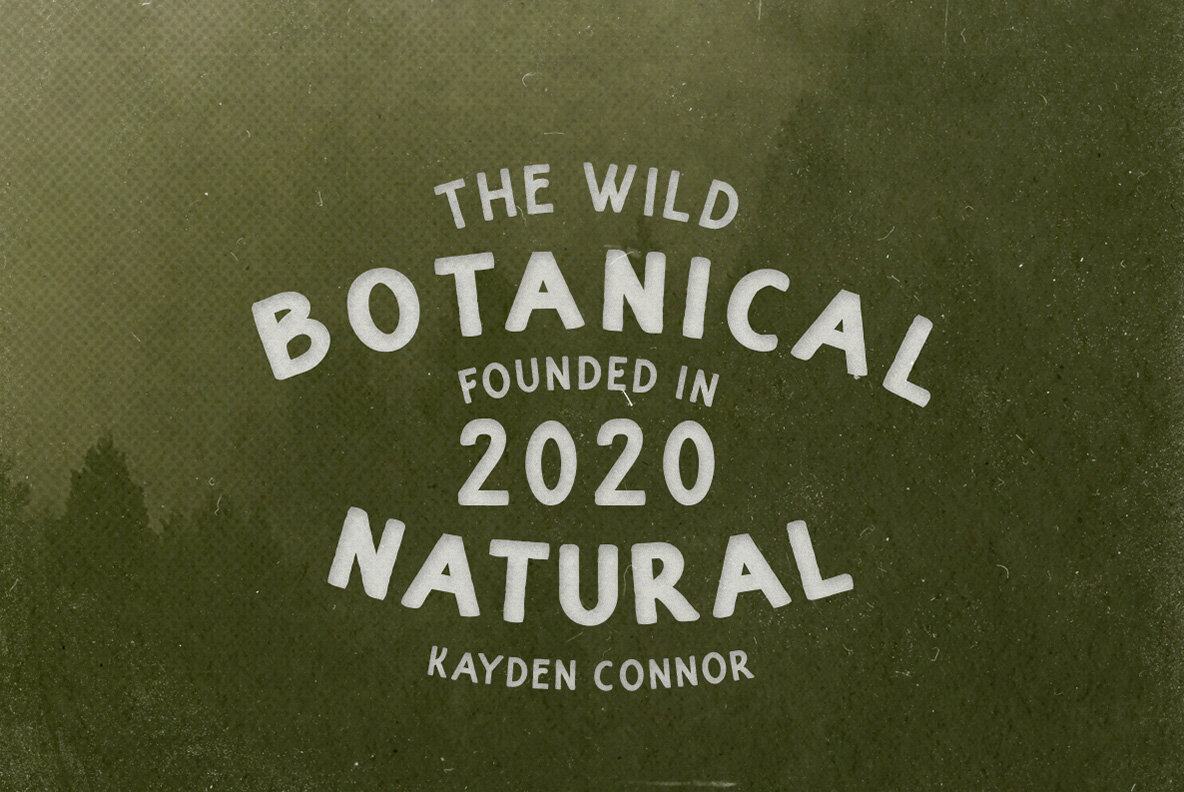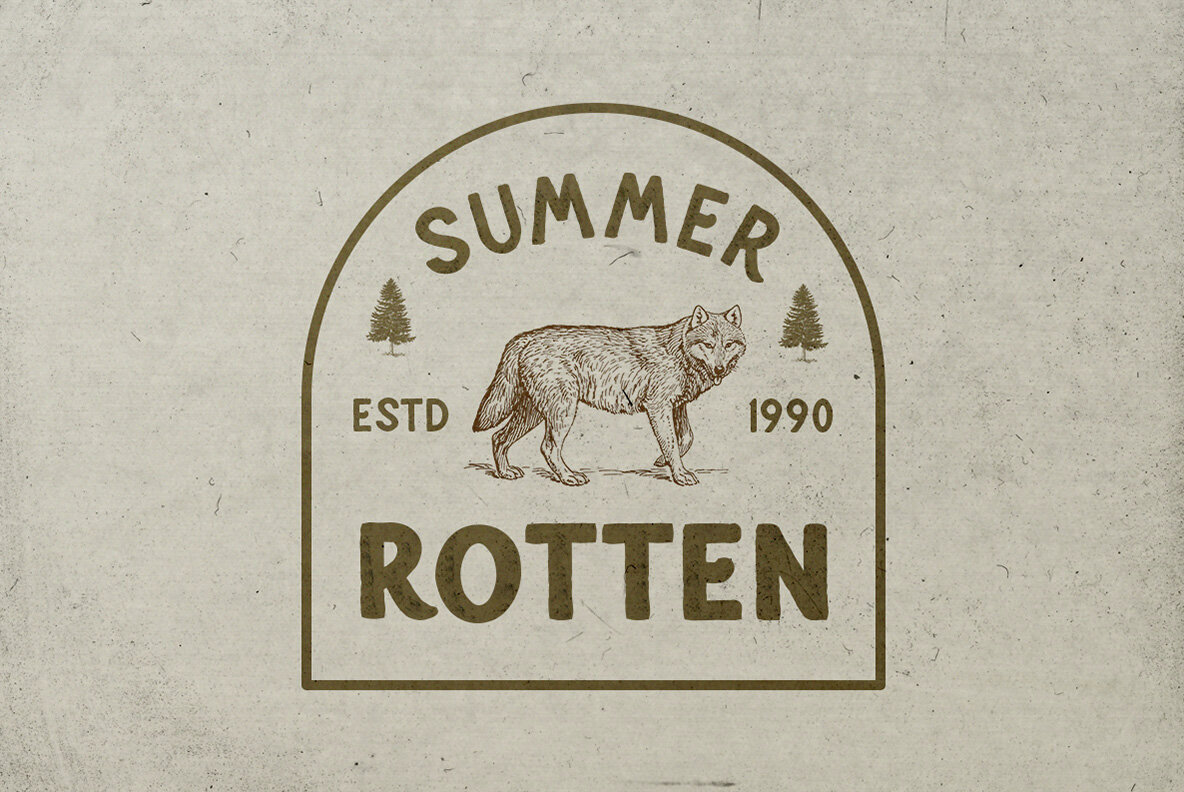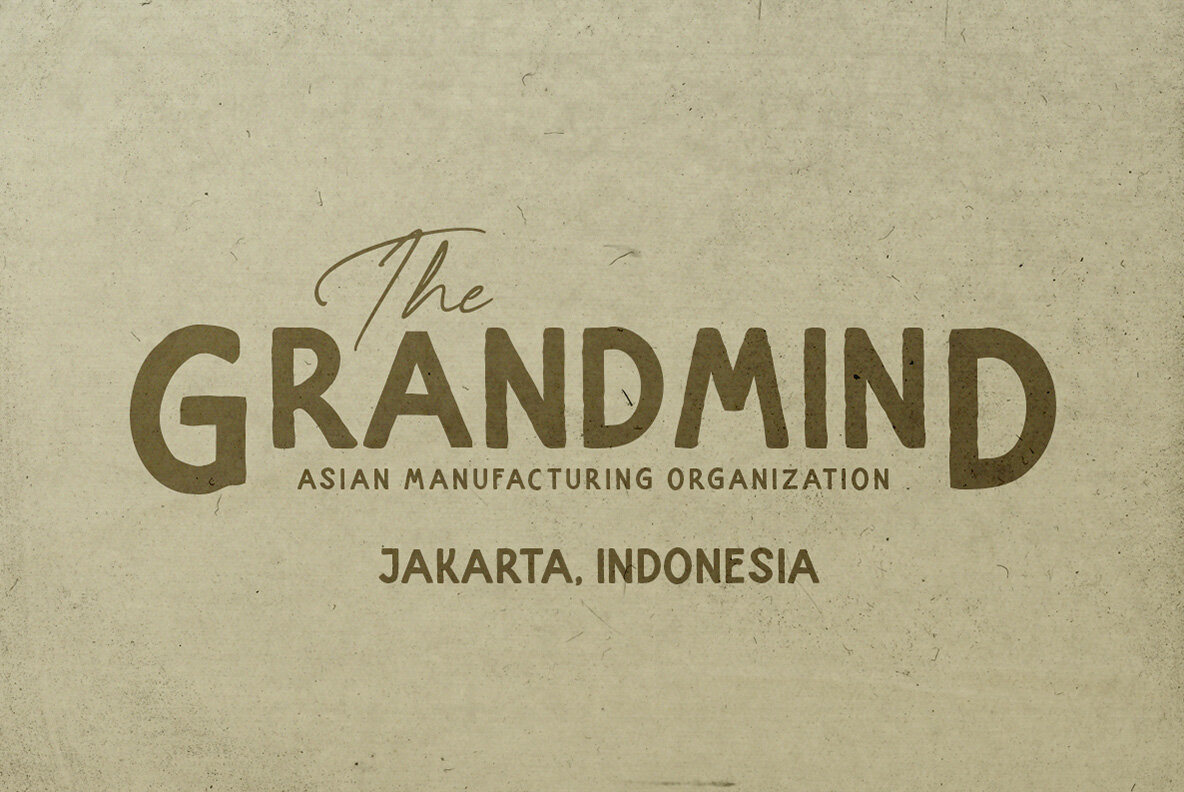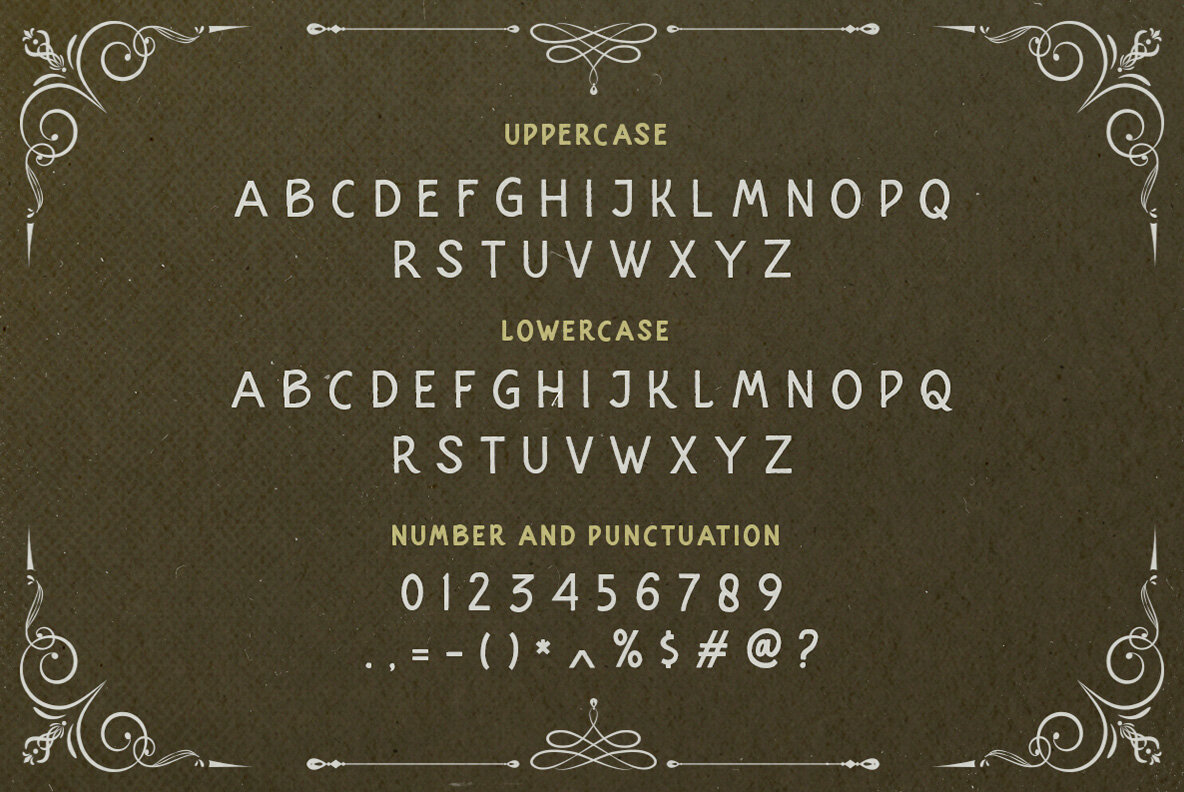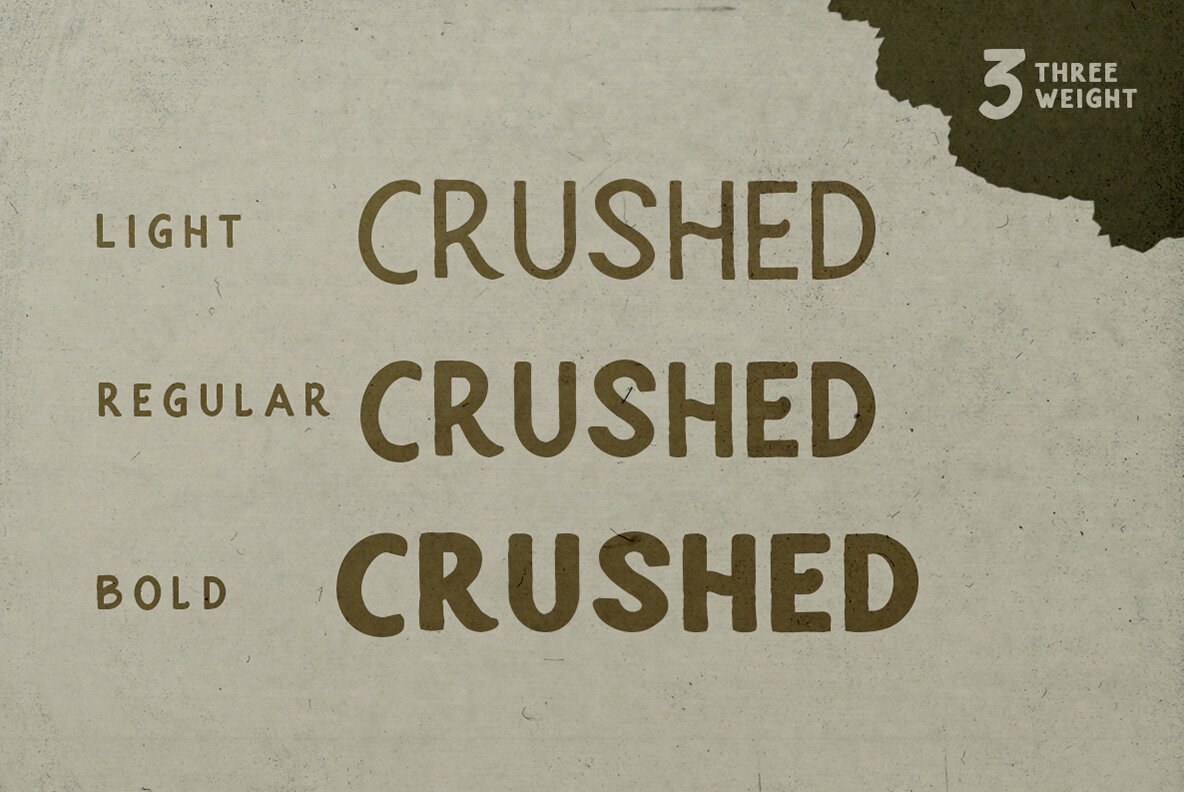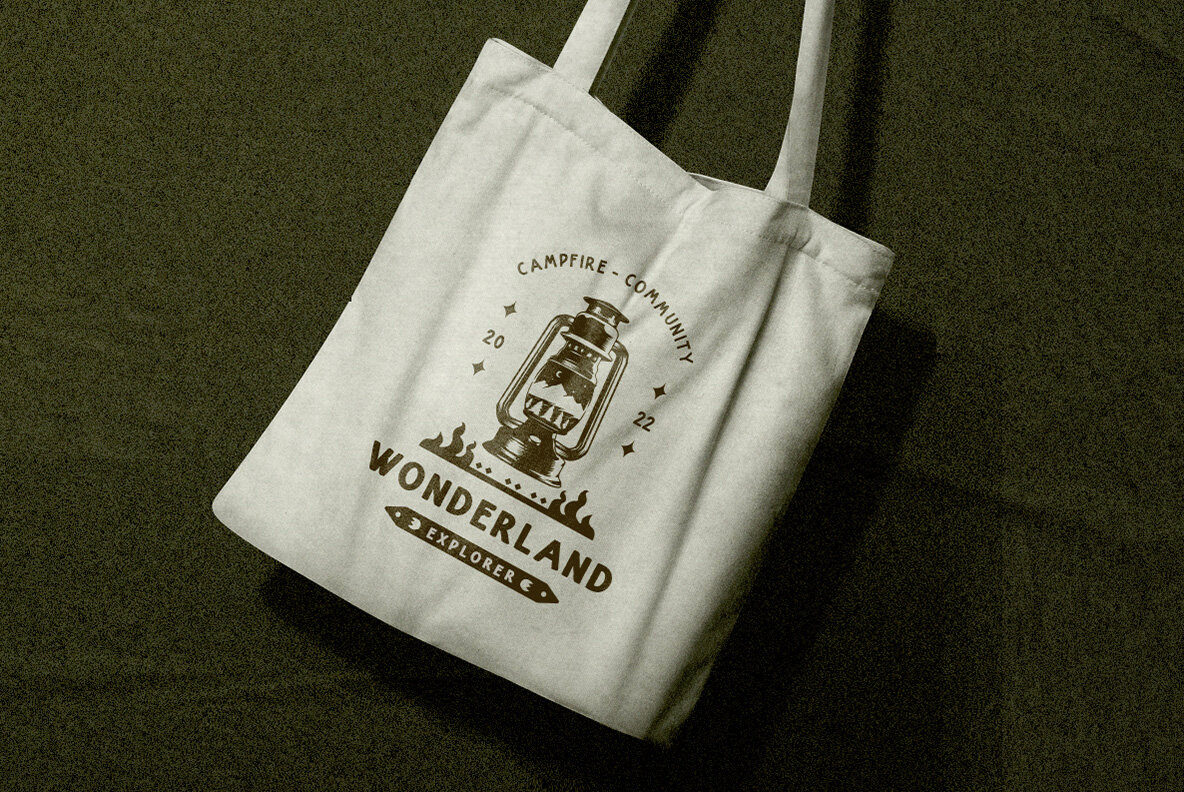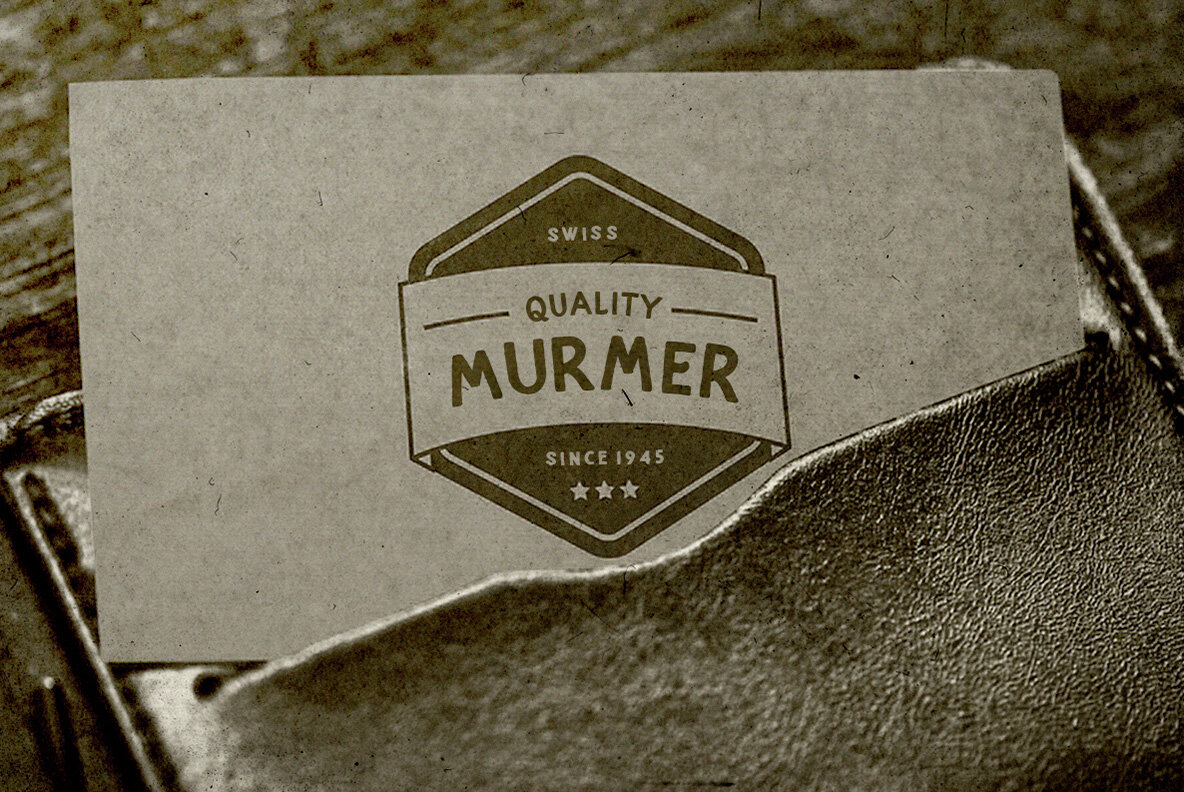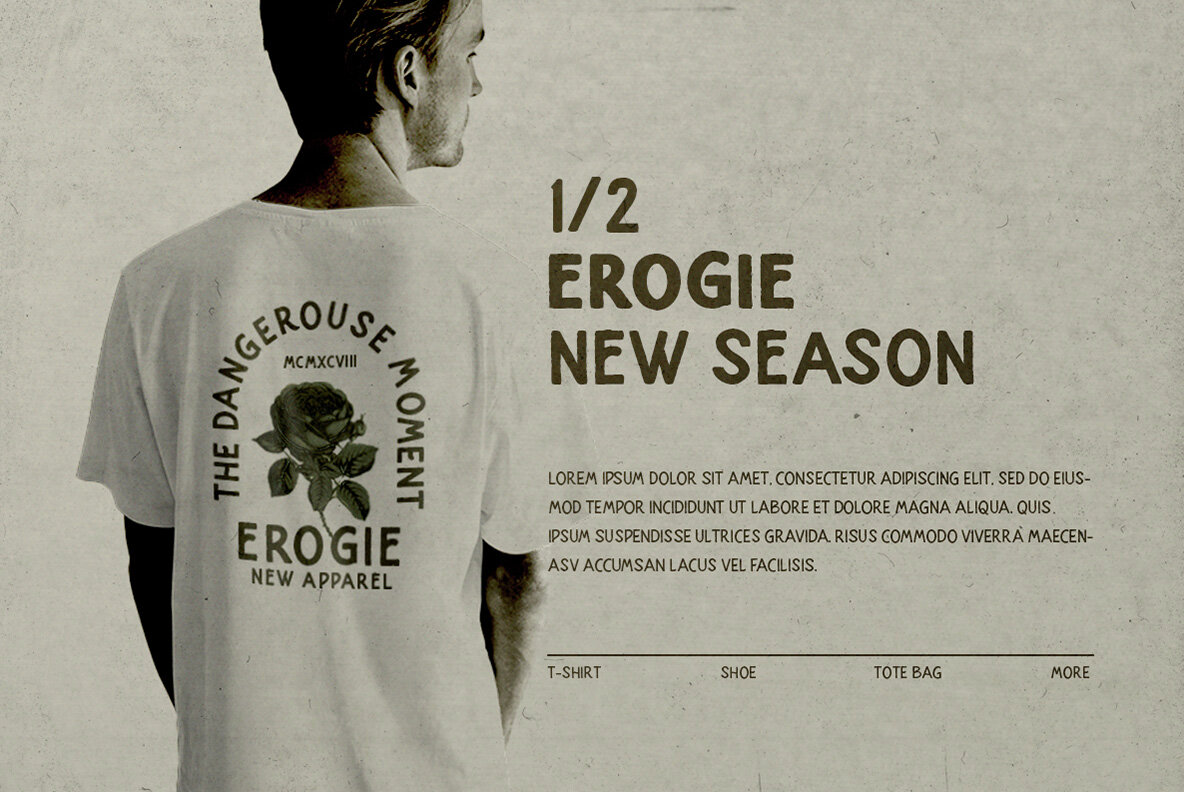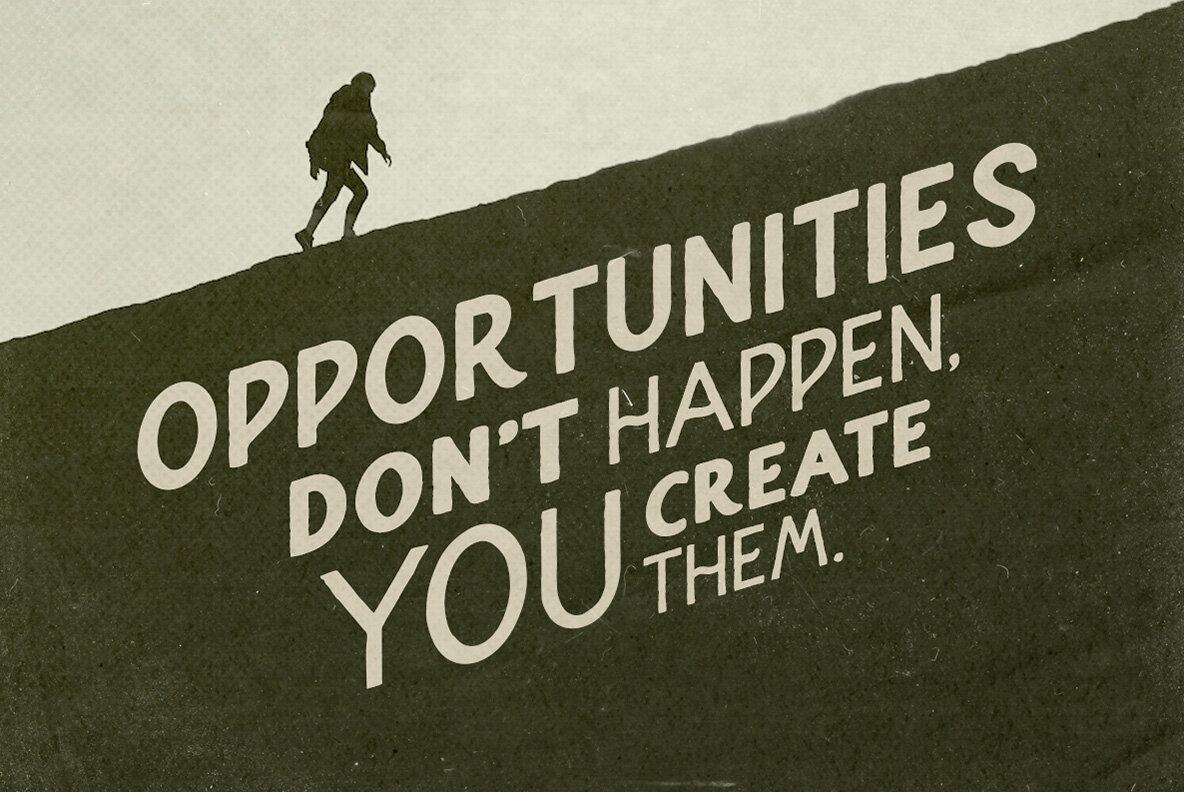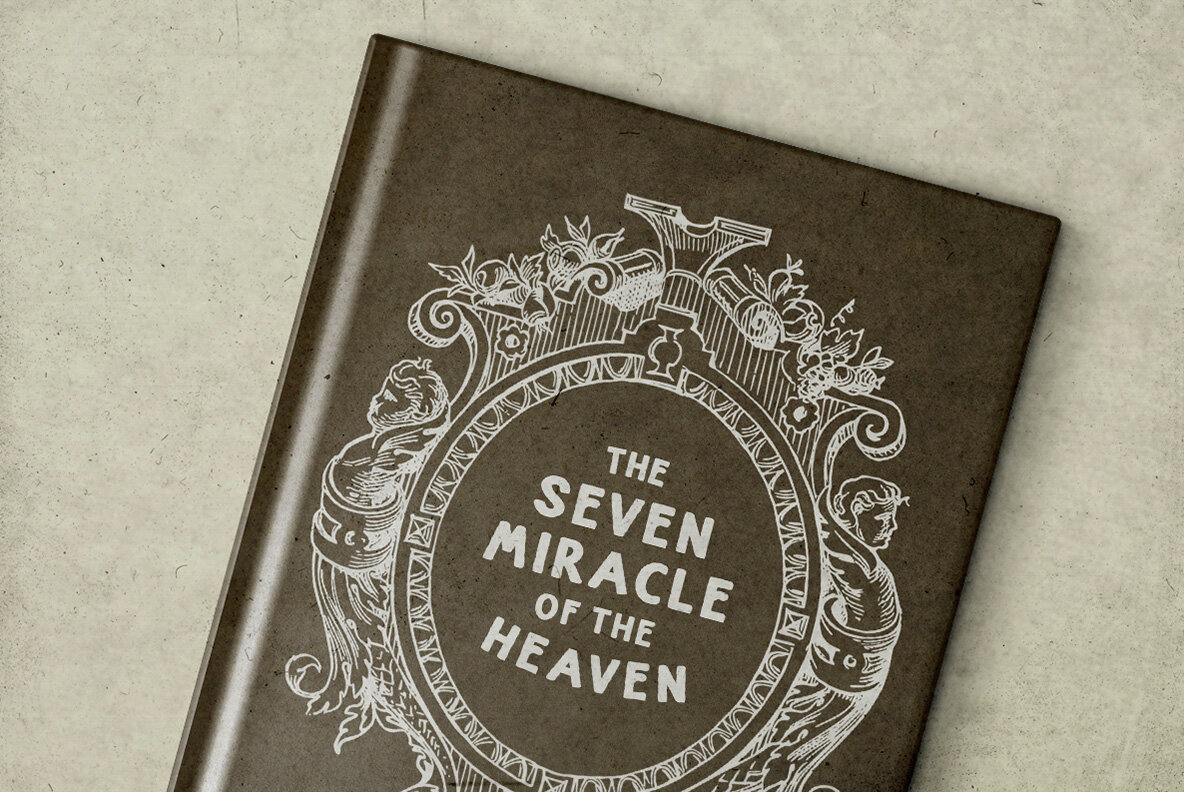
Crushed Font
Crushed is a handmade sans family with organic and rough feels. This font included light, regular, and bold. You can use this fonts for many purposes such as logotype, quotes or any projects that require adventure and outdoor vibes. With different uppercase and lowercase, you can choose what you want or combine them in a word. This fonts also support multi language!